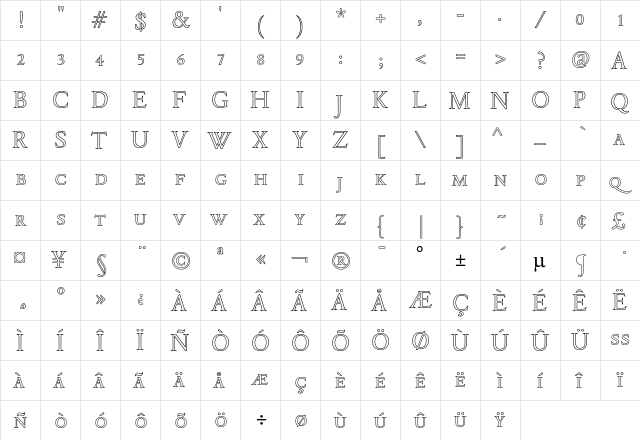
DTL Elzevir T Caps Outline Font Preview
DTL Elzevir T Caps Outline
DTL Elzevir T Caps Outline Font Details
Design Context for DTL Elzevir Typeface
DTL Elzevir brings ornamental detail and strong personality to headlines and identities, where visual impact matters more than quiet functionality.
Font Pairing: Pair with a clean neutral sans-serif for body copy to let DTL Elzevir's character lead without overwhelming the composition.
Pro Tip: Use DTL Elzevir exclusively at display sizes — it was designed to be seen, not read at length. Let a neutral companion handle body copy.